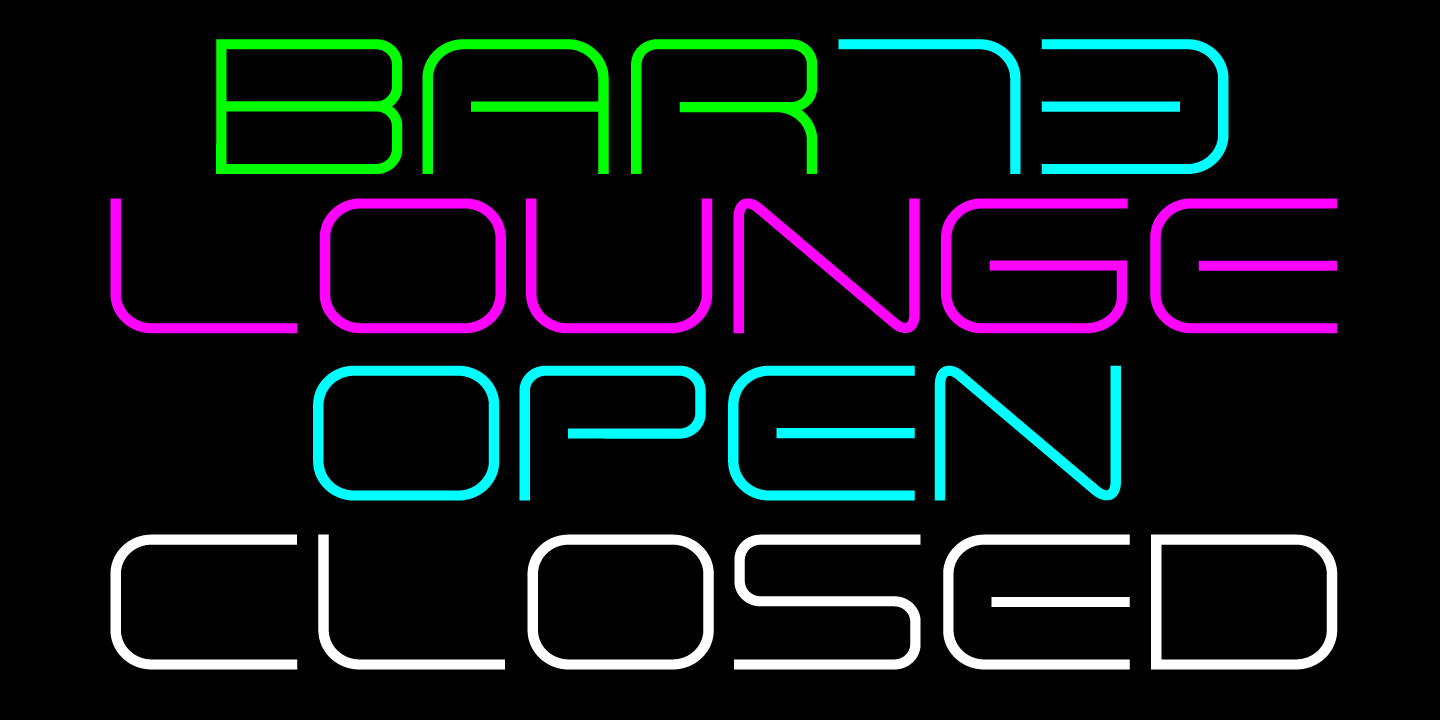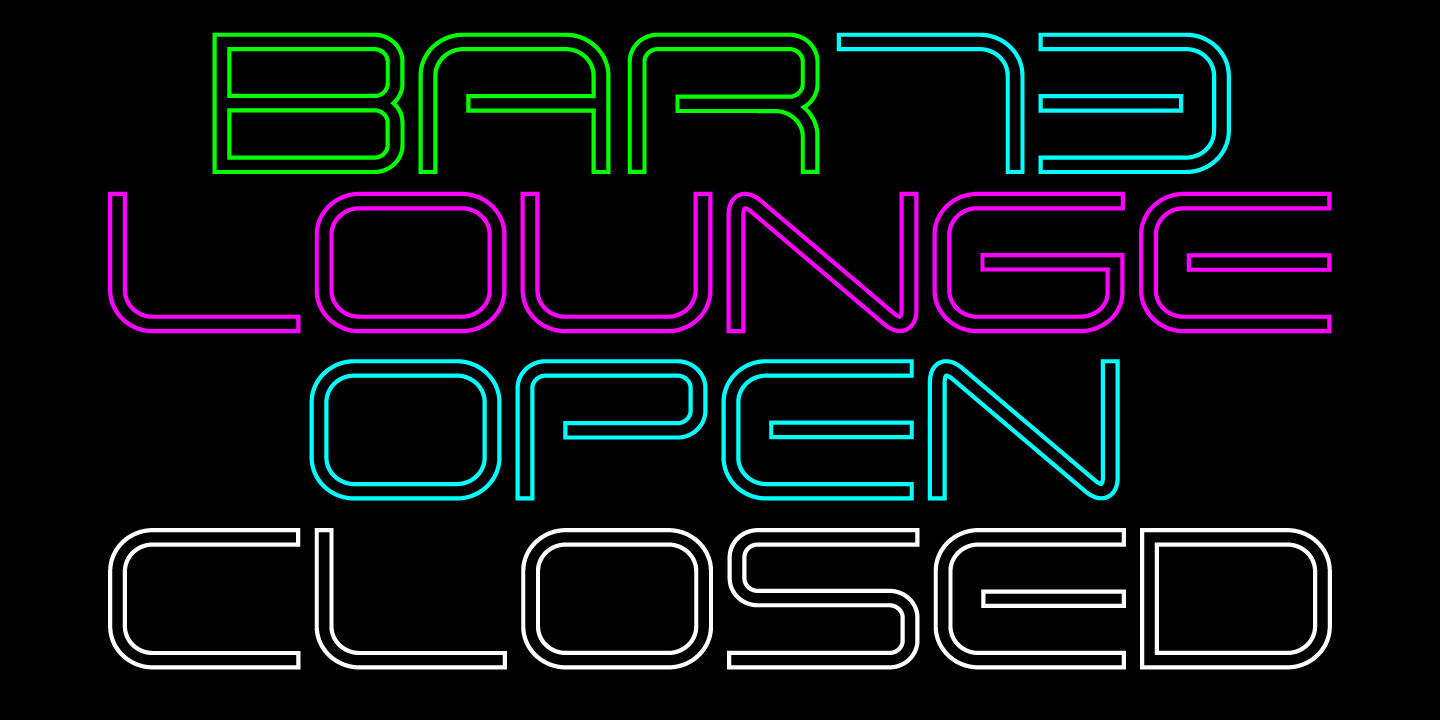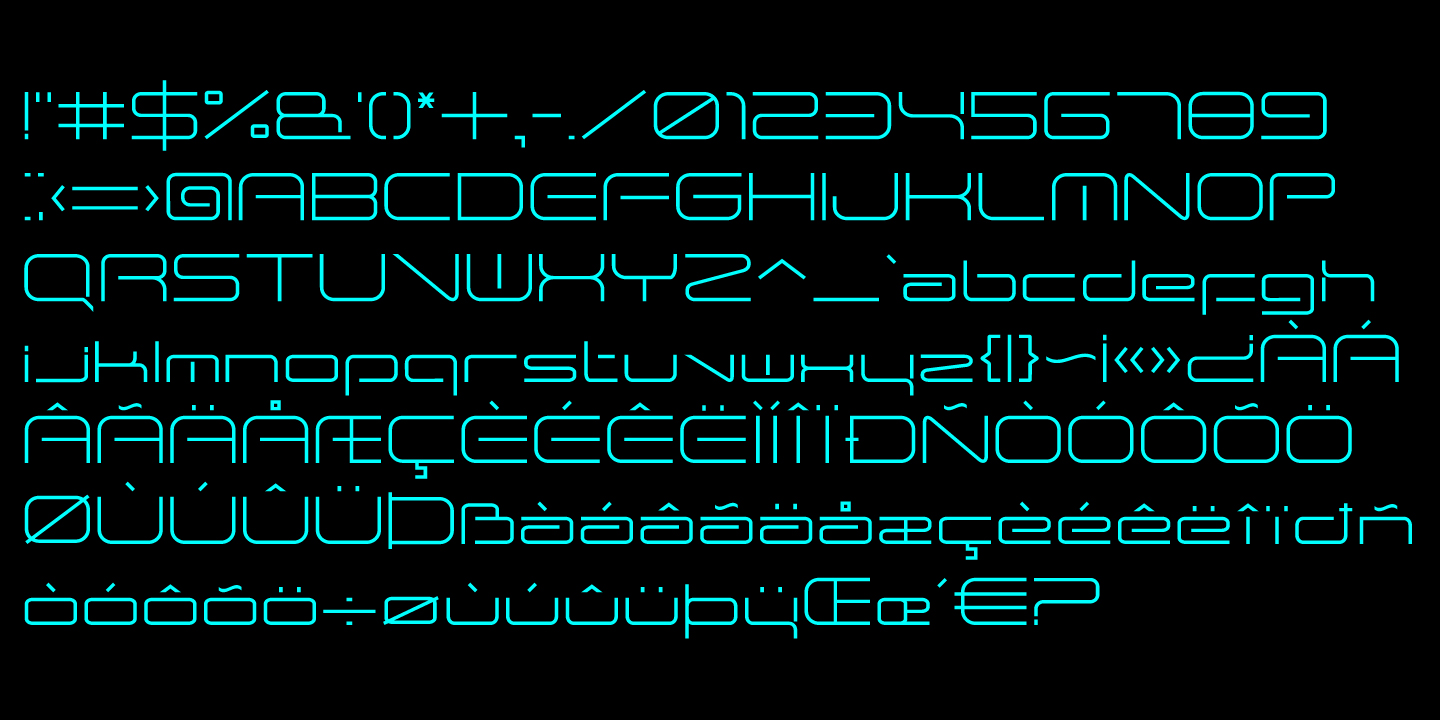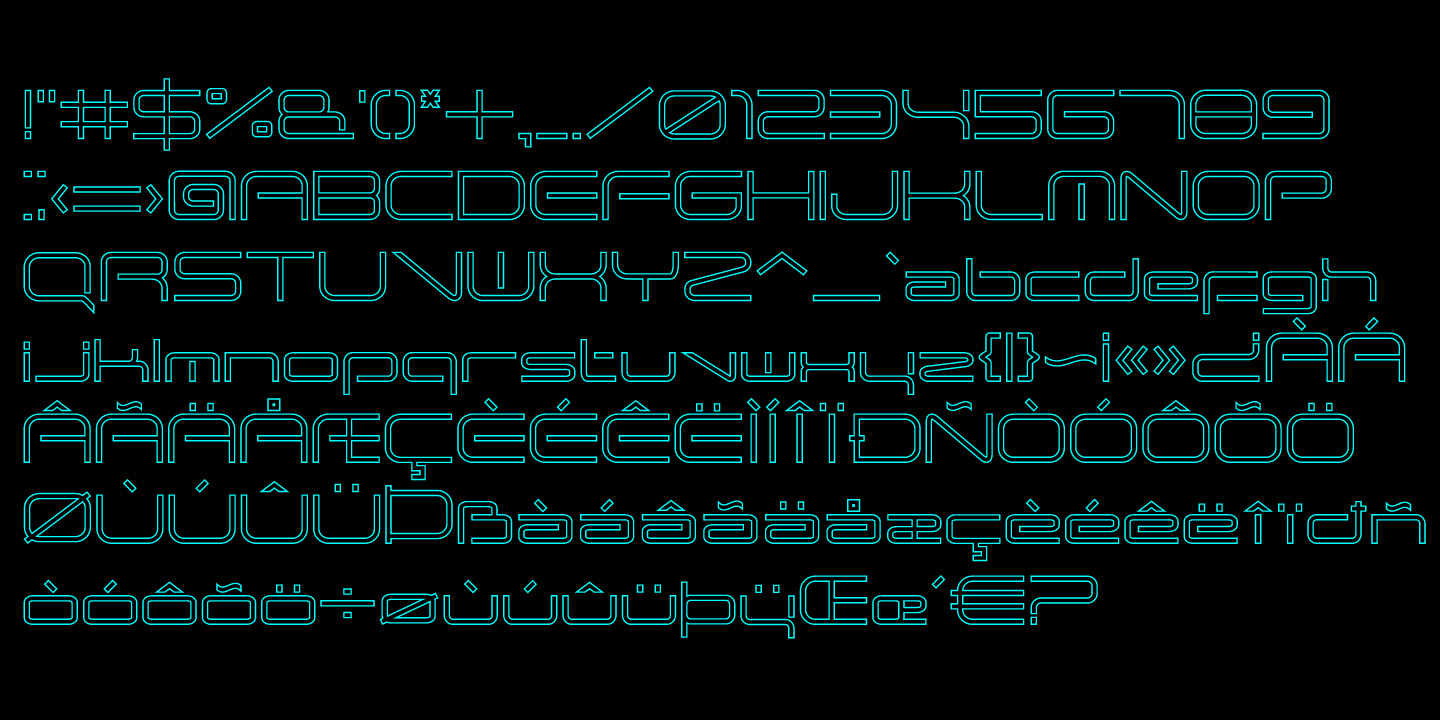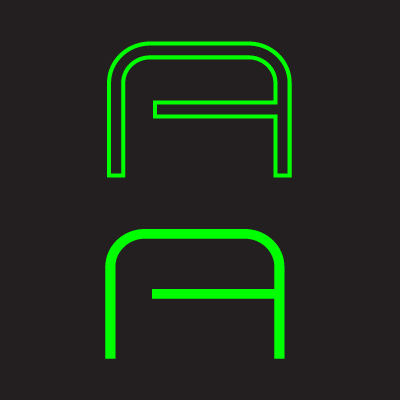
Andtioh One & Zero are modern looking tech-inspired fonts that have become my go-to for projects requiring a sleek, contemporary feel. They are multilingual and support English, French, German, Scandinavian, Spanish, Portuguese & Italian glyphs. In this article, I’ll share my experience with Andtioh Font, its features, and how to make the most of it in your designs.
An Honest Review of Andtioh Font
- ✨ Modern and Tech-Inspired Design: Andtioh Font embodies a sleek, modern aesthetic perfect for tech-related projects or any design requiring a contemporary feel.
- âś… Multilingual Support: With support for multiple languages, including English, French, German, Scandinavian, Spanish, Portuguese, and Italian glyphs, it’s versatile for global projects.
- đź’» OpenType Features: The font comes with advanced OpenType features, allowing for creative typography and customization.
While Andtioh Font is impressive, there are a few quirks to be aware of:
- 🤔 Glyph Limitations: Some users might find the glyph set not extensive enough for very specific language requirements or special characters.
- ⚠️ Legibility at Small Sizes: Like many modern fonts, Andtioh might lose legibility when scaled down significantly. Testing at various sizes is recommended.
The Backstory of Andtioh Font
The exact origins of Andtioh Font might not be well-documented, but it’s clear that the creators aimed to produce a font that embodies the sleekness and innovation of the tech world. Fonts like Andtioh are typically designed with the digital age in mind, striving to improve readability across various devices and platforms while offering a fresh, modern look.